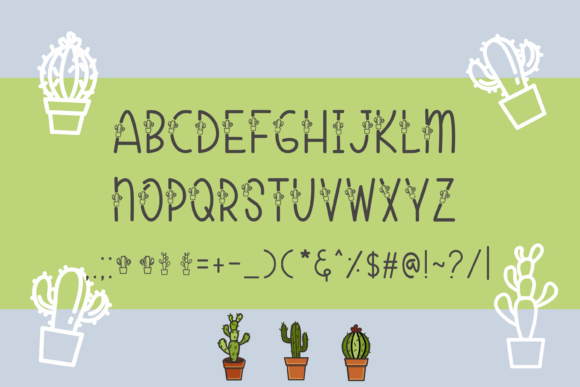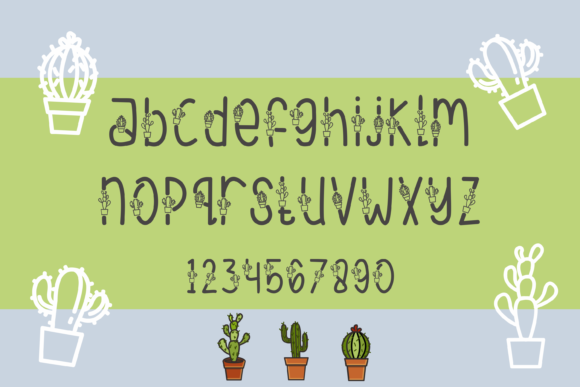
Cactuses Font: The Prickly yet Charming Decorative Font
Are you tired of using the same old fonts for your designs? Look no further! Introducing Cactuses Font, an incredibly unique and interesting decorative font that is sure to make your designs stand out. As its name suggests, this font features cactuses as ornaments, adding a touch of the desert to your creations. In this article, we’ll dive into the world of Cactuses Font and explore its features, benefits, and uses.
A Simple yet Distinct Style
Cactuses Font boasts a simple yet distinct style that is sure to capture the hearts of designers and crafters alike. The font’s design features cactuses as ornaments, which are intricately woven into the letters and numbers. The result is a visually striking font that is both elegant and playful. Whether you’re designing a logo, creating a social media graphic, or crafting a handmade card, Cactuses Font is sure to add a touch of personality to your work.
What Makes Cactuses Font So Special?
So, what sets Cactuses Font apart from other decorative fonts? Here are a few features that make it truly special:
• Unique Ornaments: The cactus ornaments used in this font are unlike anything you’ve seen before. They’re intricate, detailed, and add a touch of whimsy to your designs.
• Versatile: Cactuses Font can be used for a wide range of design projects, from logos and branding to social media graphics and craft projects.
• Scalable: Cactuses Font is highly scalable, making it perfect for designs that need to be resized frequently.
Uses for Cactuses Font
Cactuses Font is an incredibly versatile font that can be used for a wide range of design projects. Here are a few ideas to get you started:
• Logos and Branding: Use Cactuses Font to create a unique and memorable logo for your business or brand.
• Social Media Graphics: Add a touch of personality to your social media graphics with Cactuses Font.
• Craft Projects: Use Cactuses Font to create handmade cards, gift tags, and other craft projects.
• Invitations and Stationery: Create beautiful invitations, stationery, and other paper goods with Cactuses Font.
Tips for Using Cactuses Font
Here are a few tips for getting the most out of Cactuses Font:
• Experiment with Colors: Cactuses Font looks great in a variety of colors, so don’t be afraid to experiment and find the perfect hue for your design.
• Mix and Match: Combine Cactuses Font with other fonts and design elements to create a unique and eye-catching design.
• Pay Attention to Size: Make sure to adjust the size of your text to ensure that the cactus ornaments are visible and balanced.
Cactuses Font is an incredibly unique and interesting decorative font that is sure to add a touch of personality to your designs. With its simple yet distinct style, versatile uses, and easy-to-use design, it’s no wonder that Cactuses Font is quickly becoming a favorite among designers and crafters. So why not give it a try? Fall in love with Cactuses Font and create spectacular designs that are sure to impress!